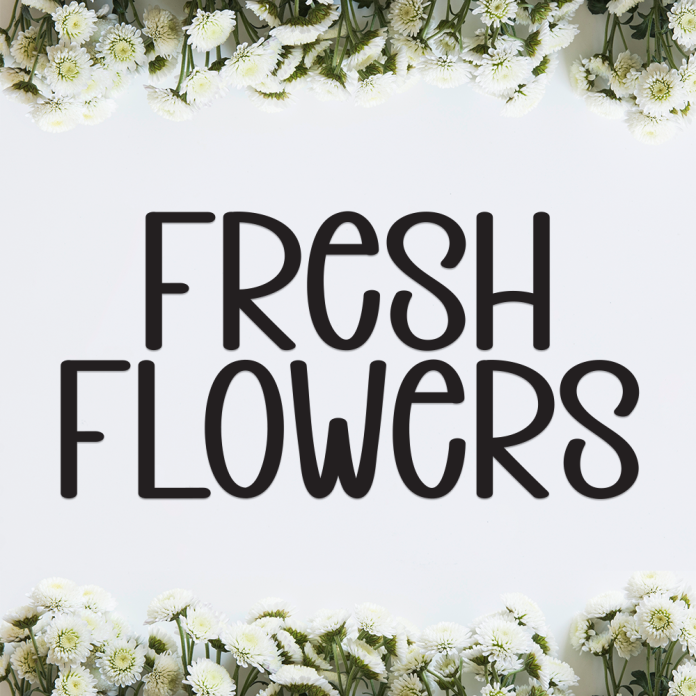
Fresh Flowers is a playful and eye-catching display font inspired by the freshness and colors of blooming gardens. With bold, decorative shapes and a fun personality, this font is perfect for children’s projects, spring or summer-themed designs, posters, party invitations, and anything that needs a joyful, lively touch.
Bold, floral-inspired design
Great for titles, headlines, and logos
Whimsical and fun aesthetic
Bring life and color to your design with the bright spirit of Fresh Flowers!